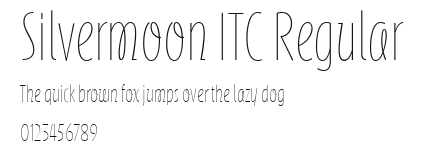
• Font Name: Silvermoon ITC Regular
• Full Font Name: Silvermoon ITC
About Silvermoon ITC Regular.ttf
Silvermoon ITC Regular.ttf is a modern, elegant sans-serif font designed for ultimate readability and visual harmony. Perfect for branding, headlines, web design, and print materials.